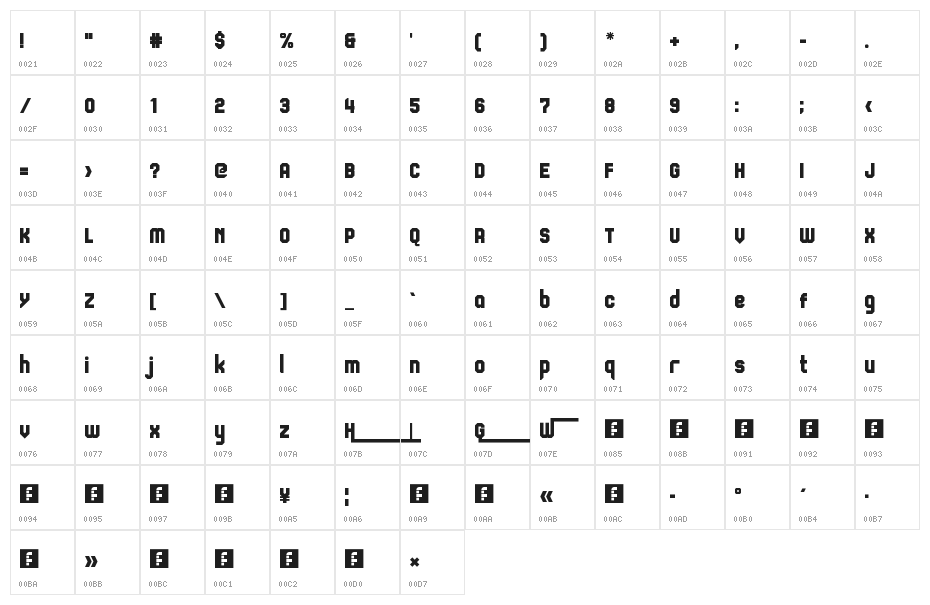
Headline Gothic Regular Font
Headline Gothic Regular Description
This font features a bold and geometric design with strong, angular lines and a modern aesthetic. The uppercase letters are particularly striking, with a blocky and robust appearance that commands attention. The lowercase letters maintain the same geometric style, providing a cohesive look across different text cases. Numbers and special characters are designed with the same boldness, ensuring consistency throughout. The overall style is reminiscent of industrial and urban themes, making it suitable for impactful and eye-catching designs.
| Proposed Projects | Ideal for headlines, posters, branding, and any project requiring a strong visual impact. |